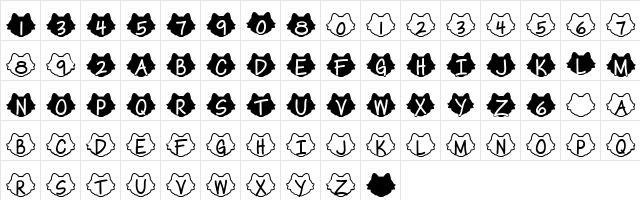
Pussycats Regular
Design Context for Pussycats Typeface
Pussycats is a composed and adaptable typeface that performs quietly and consistently across a wide range of design contexts.